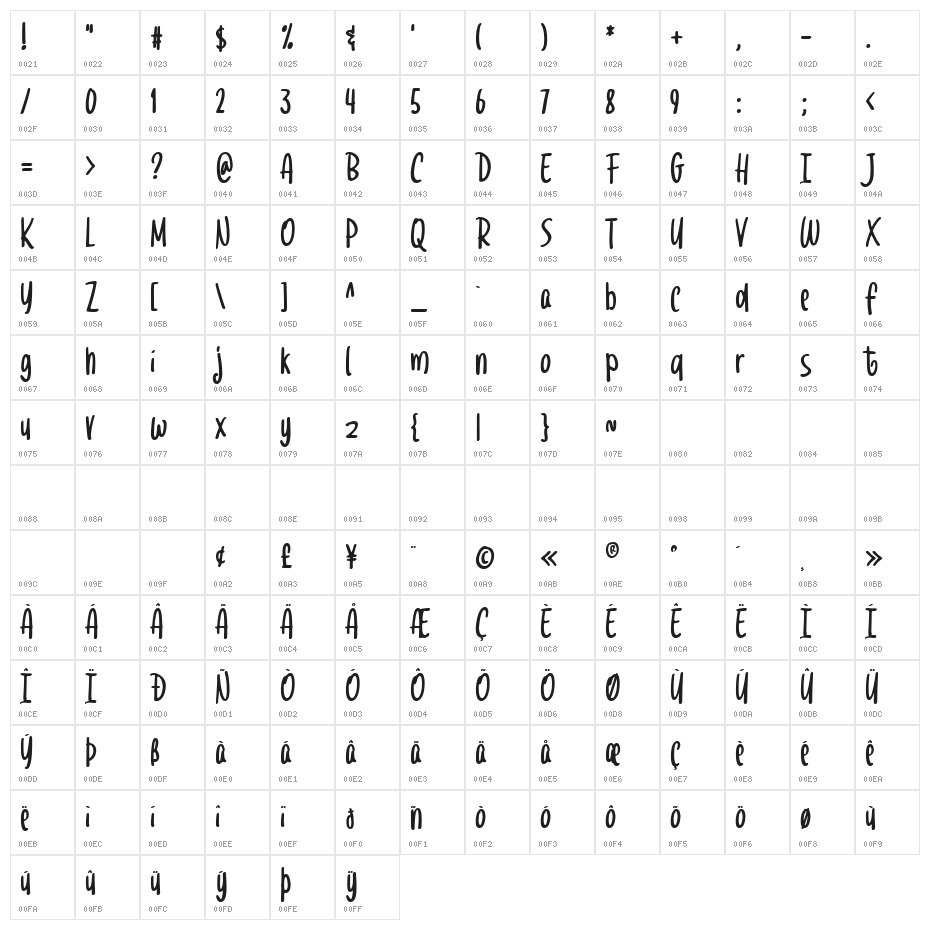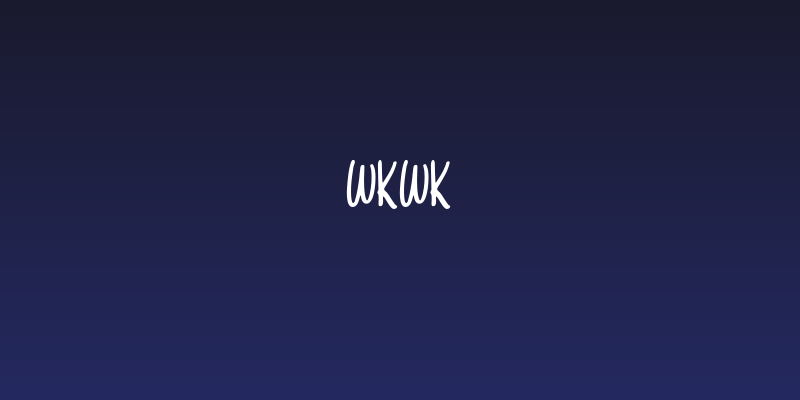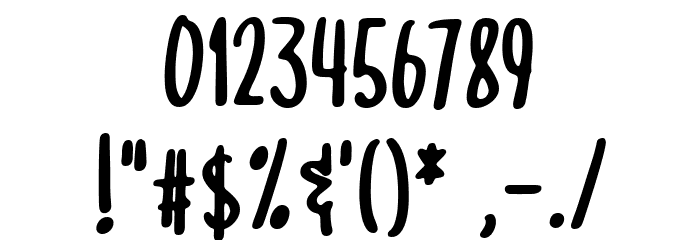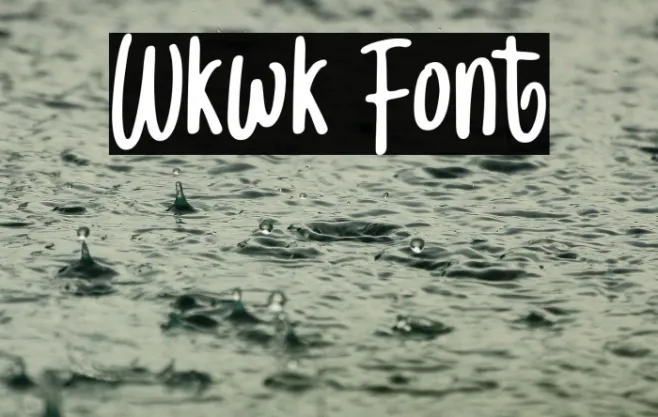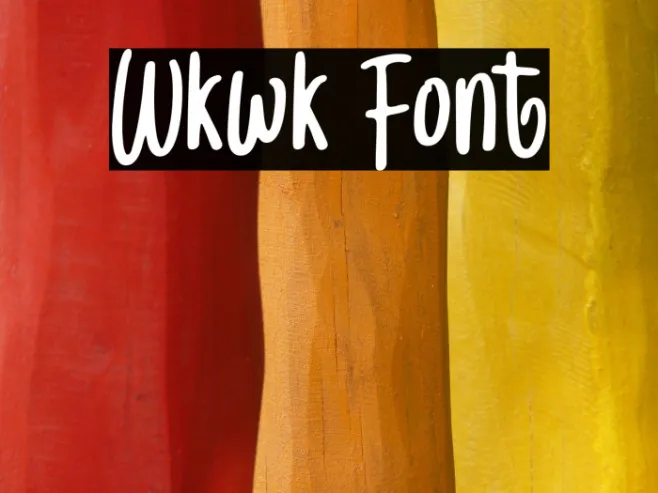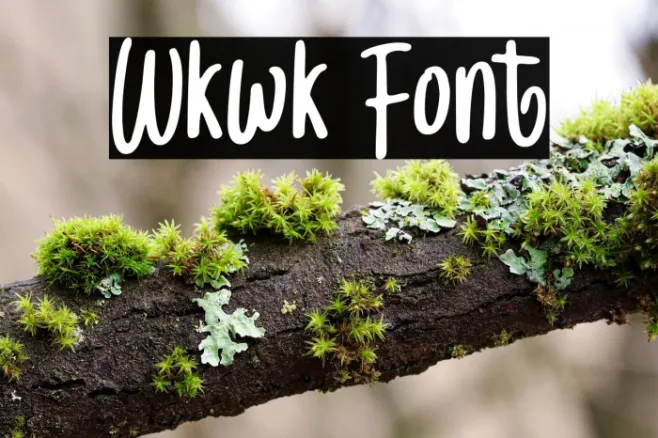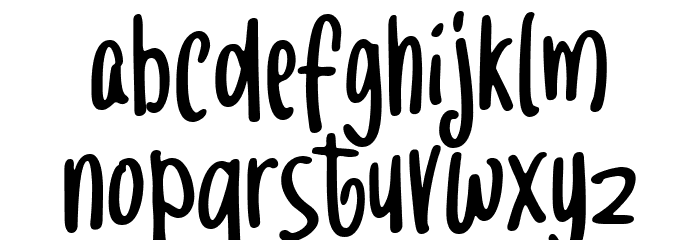
Wkwk Font
Wkwk Description
This playful and energetic font features a handwritten style with a casual and friendly appearance. The letters are slightly irregular, adding a touch of whimsy and personality. The strokes are bold and rounded, giving the font a warm and approachable feel. It maintains a consistent weight throughout, ensuring readability while retaining its unique character. The font's informal nature makes it suitable for creative projects that require a personal touch. Its versatility allows it to be used in various contexts, from children's books to playful branding.
| Proposed Projects | Ideal for children's books, playful branding, greeting cards, and creative social media graphics. |